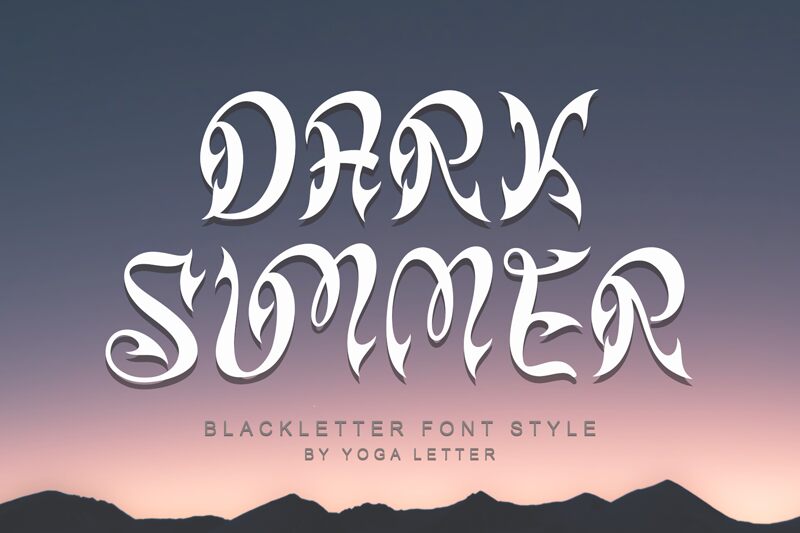
Dark Summer font designed by Yoga Letter is a free Gothic typeface with a dramatic and commanding presence. It evokes mystery and intrigue with its intricate shapes and ornate designs. Its elegant style is inspired by the past and thus ideal for projects which aim to achieve a historical feel. Dark Summer brings a nostalgic charm and is therefore suitable for vintage-themed applications.
Nightclubs or event posters, branding, album covers, websites, typographic work for books, comics, and video games; this font has unlimited uses. Designers can incorporate it into movie and video production or even on apparel and packaging designs.